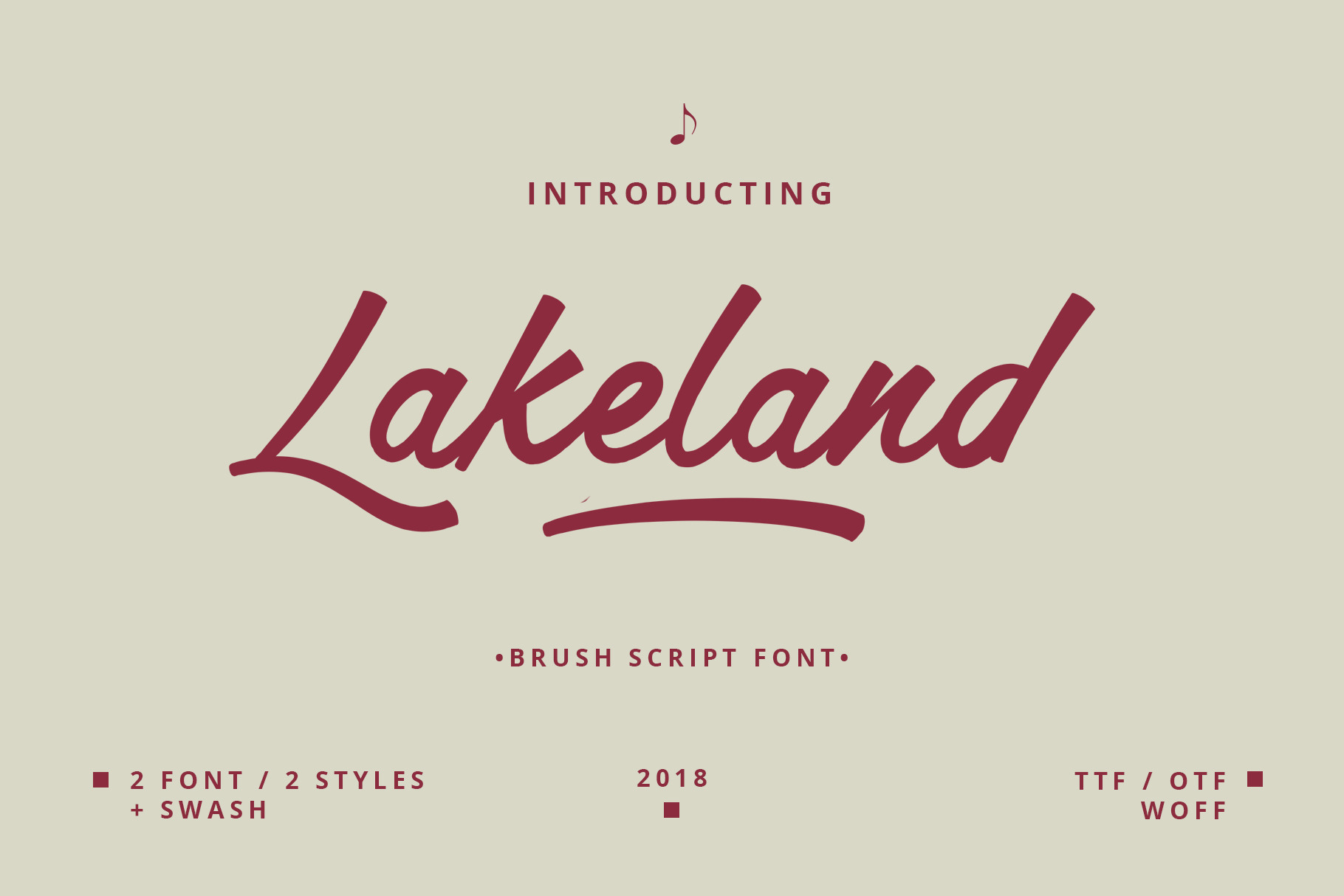
Lakeland brush font
Lofinight: is a very unique brush script font. font consists of 2 fonts, 2 texture fonts and swash, each font has: uppercase, lowercase, ligature, alternative, multilingual, etc.
This font is suitable for creating logos, posters, apparel designs, cards, etc. or use your creativity to make beautiful designs with this font.